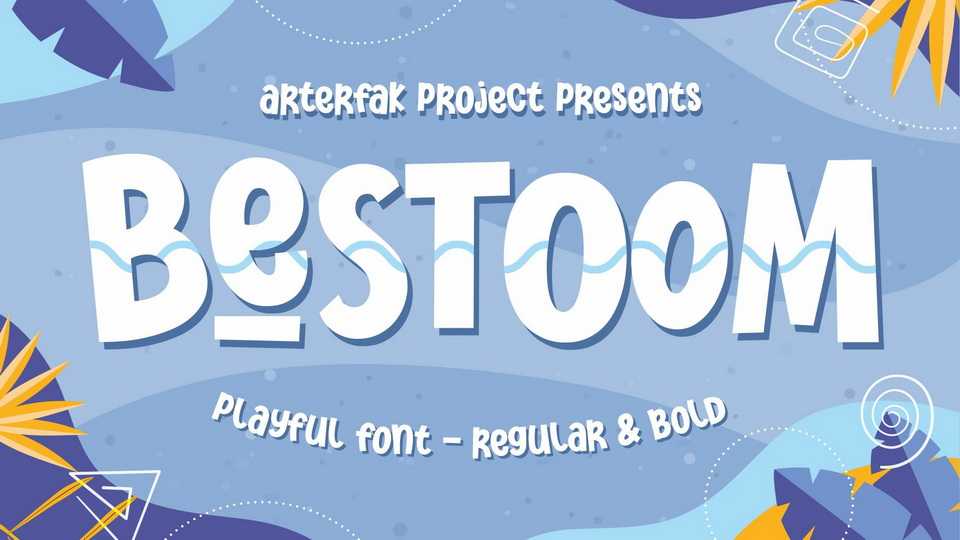
Download Bestoom font, a playful handwritten typeface, made with dynamic letter strokes and a bouncy layout that makes your design looks more cheerful. Bestom is inspired by comic typography and kids’ storybook.